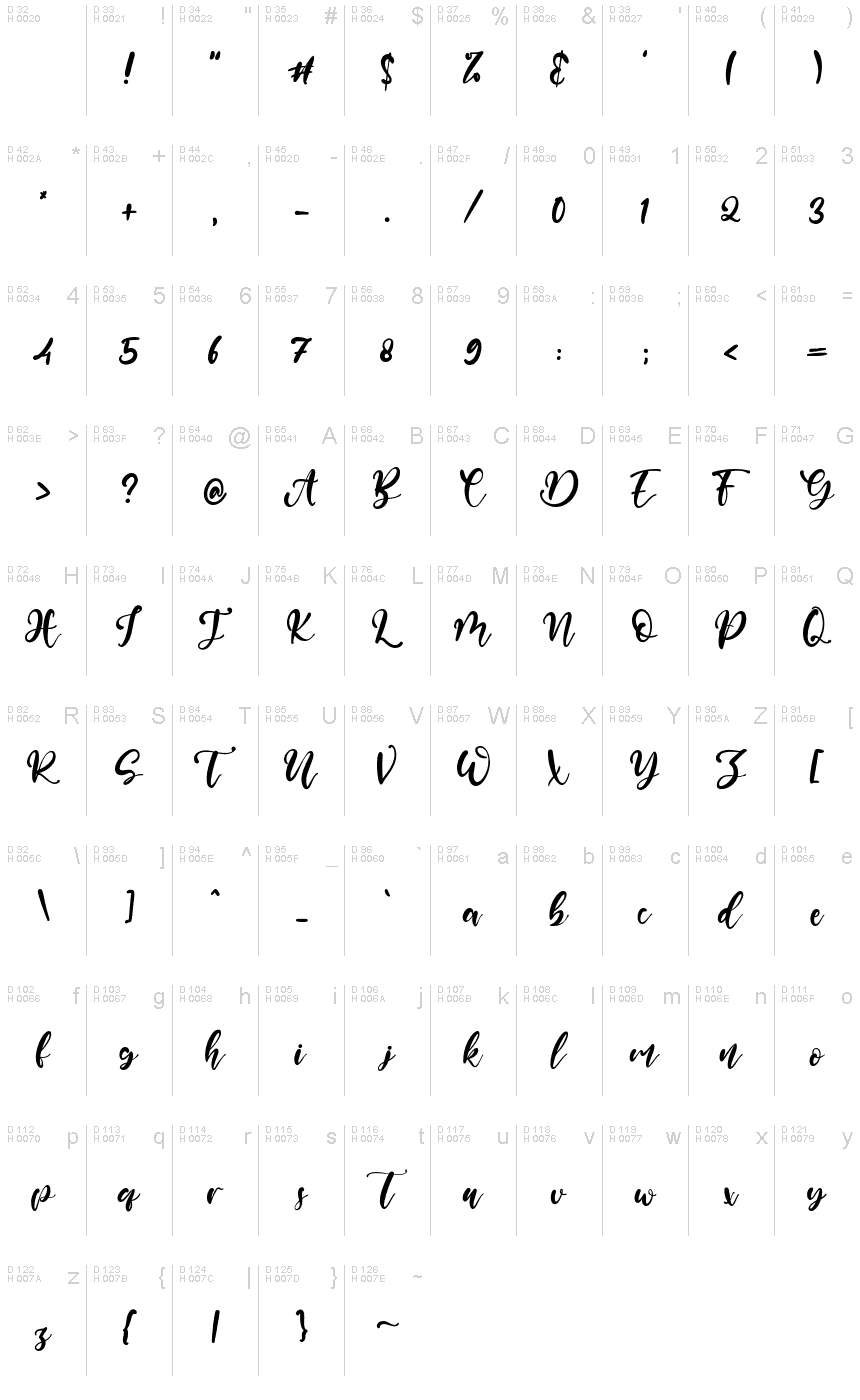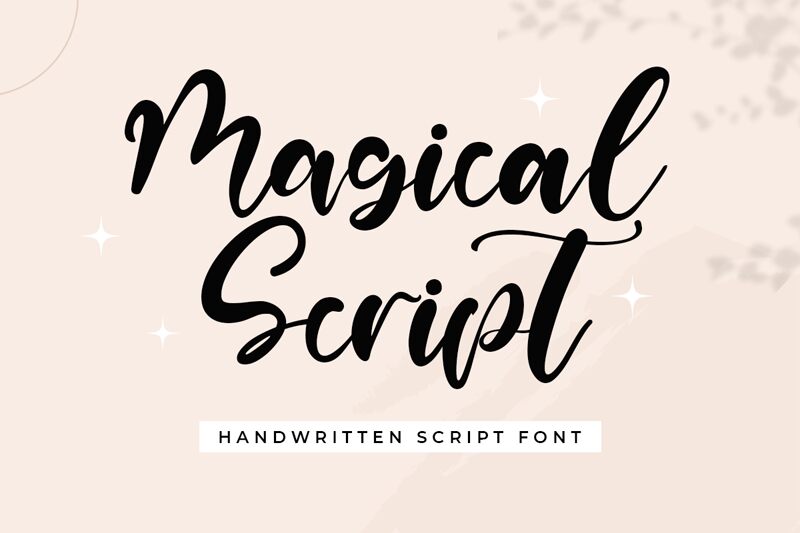
Magical Script
Magical Script, designed by Kong Font, is a captivating handwritten typeface that effortlessly combines elegance and whimsy.
With its semi-light weight, it exudes a delicate charm perfect for invitations, greeting cards, and wedding stationery. Its flowing strokes and graceful curves add a touch of enchantment to any project. Whether you're designing elegant branding materials or creating magical illustrations for children's books, Magical Script will infuse your work with an air of mystery and wonder.
Let this font transport your audience to a world where dreams come true.